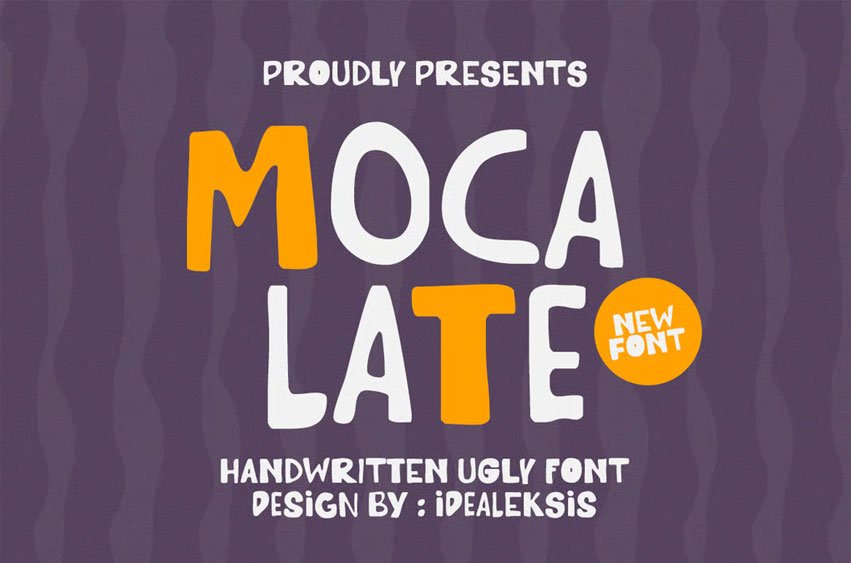
Moca Late Font is a quirky, playful, and intentionally imperfect handwritten font designed to bring personality and fun to any creative project. With its uneven strokes, irregular shapes, and charmingly “ugly” aesthetic, this typeface captures the raw energy of true hand-drawn lettering.
Bold, friendly, and full of character, it works beautifully for kids’ designs, branding, posters, packaging, social media graphics, and anything that needs a humorous or casual touch.